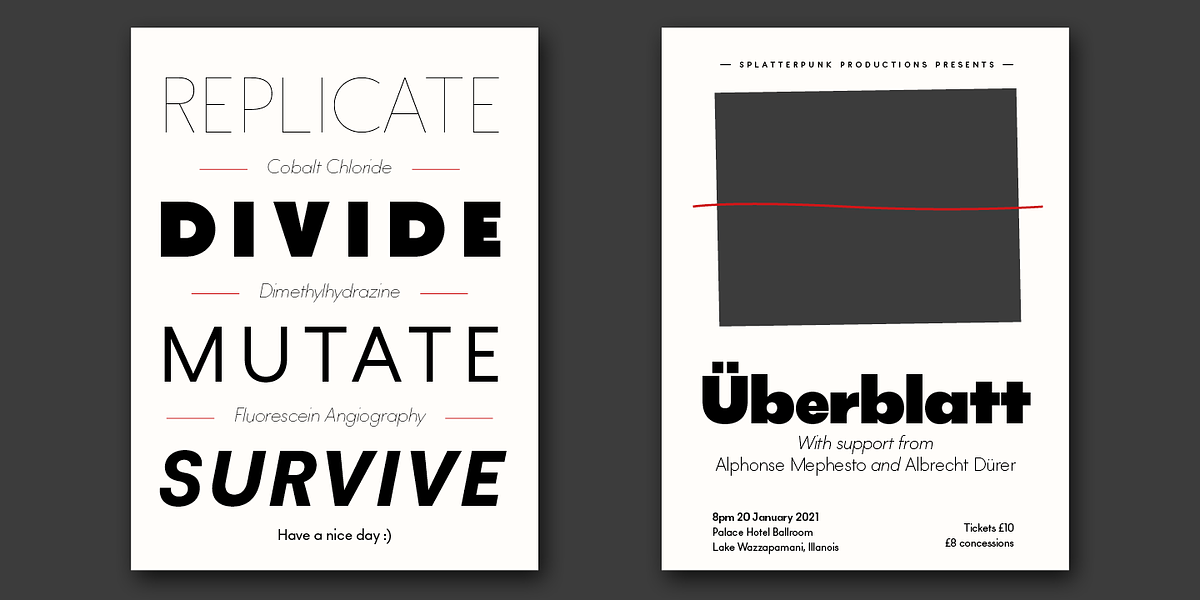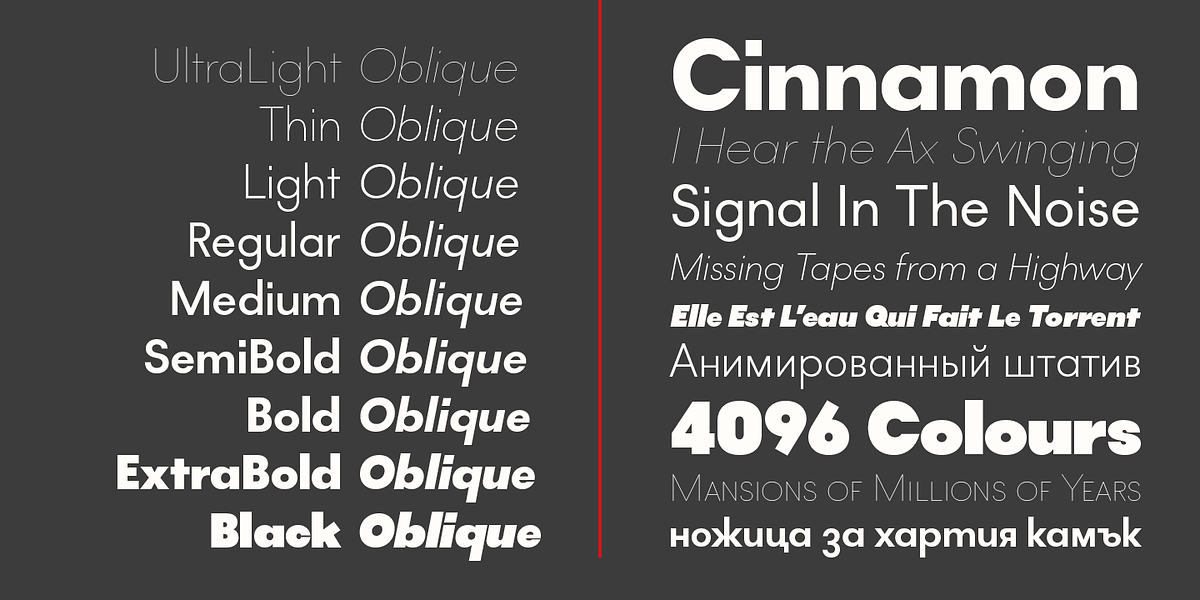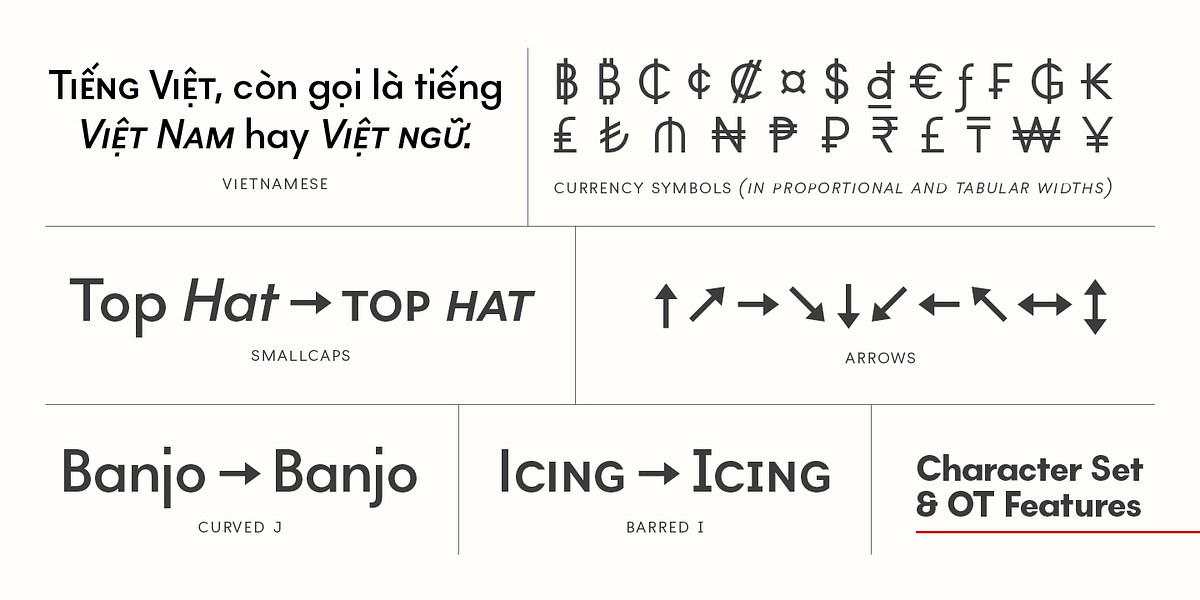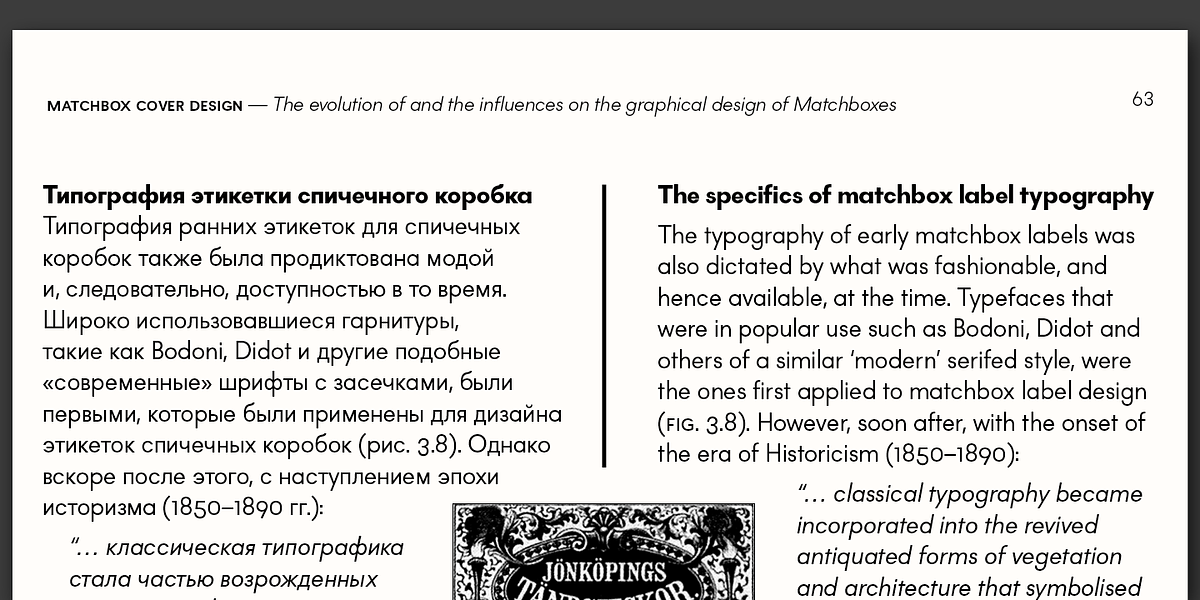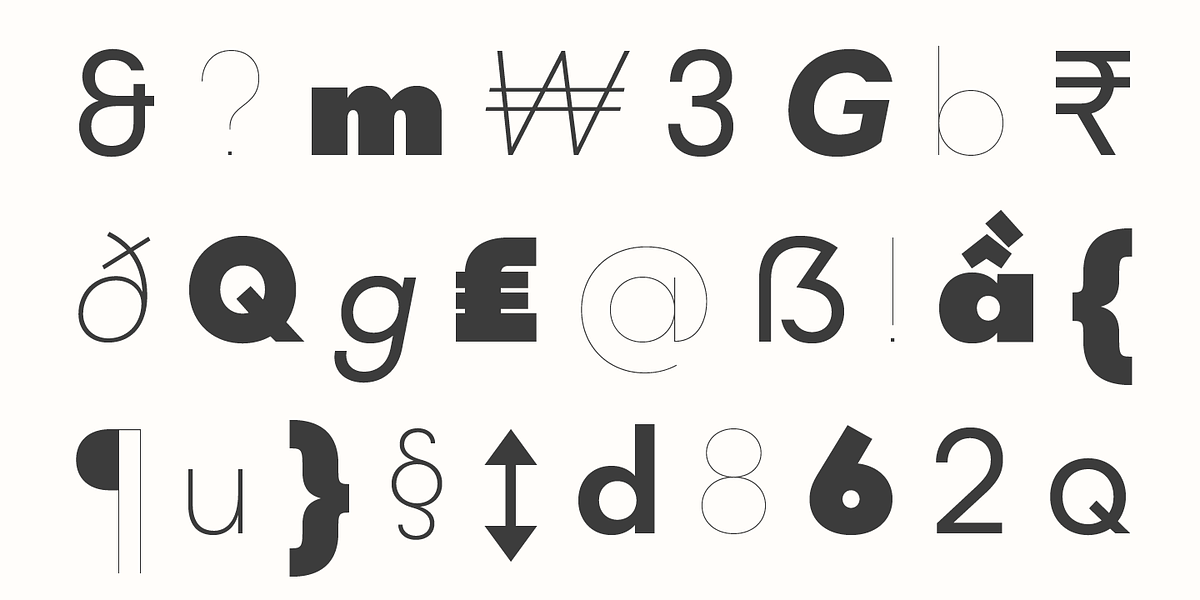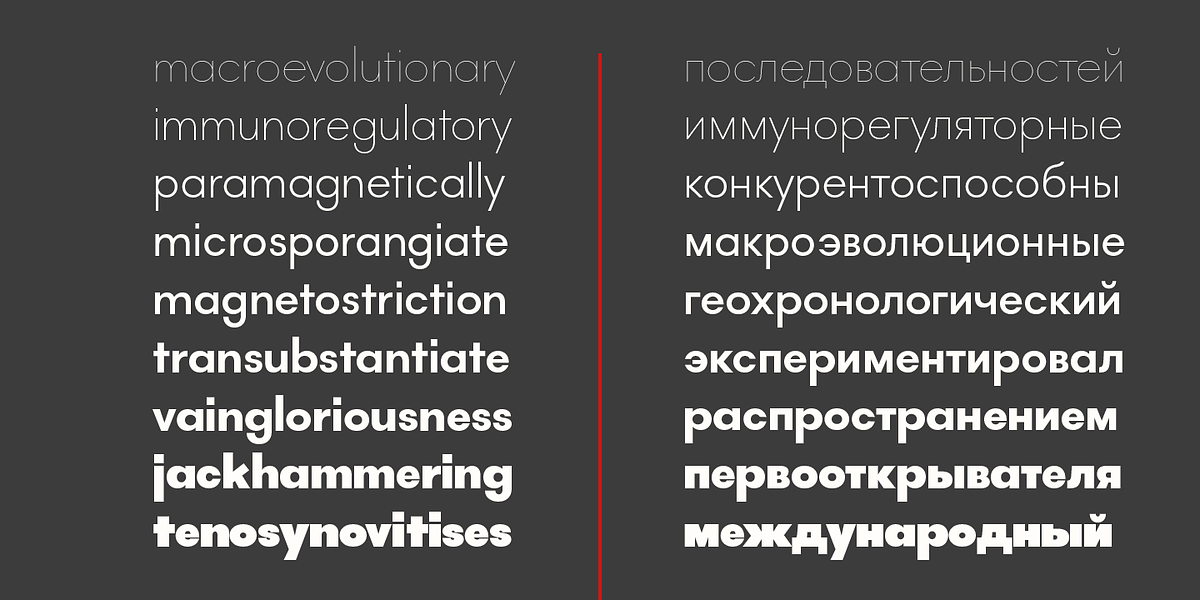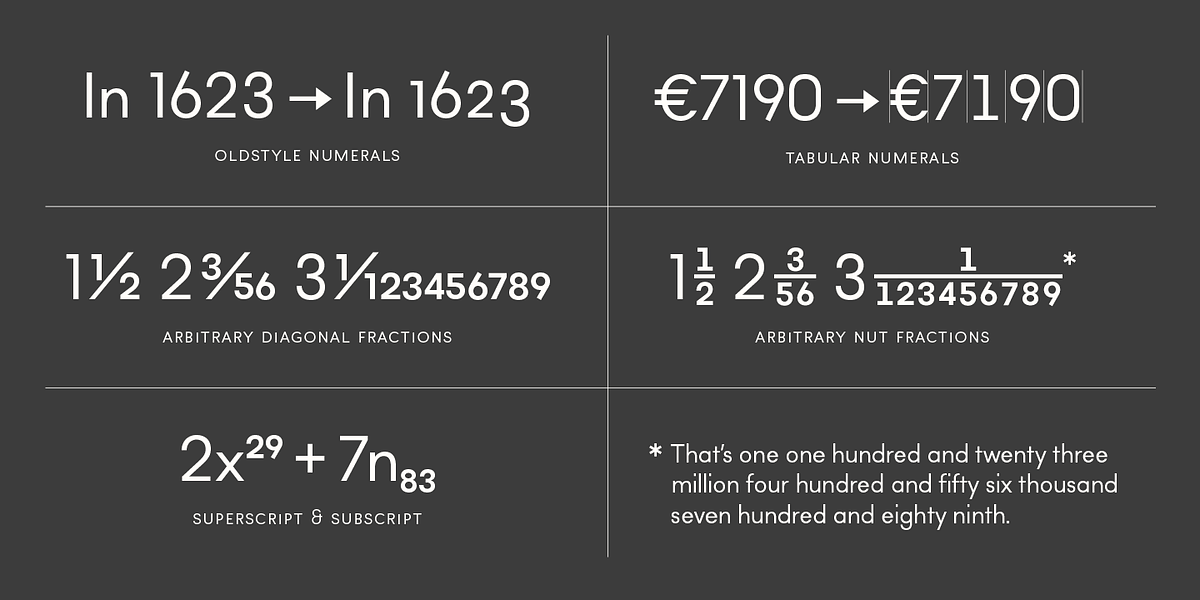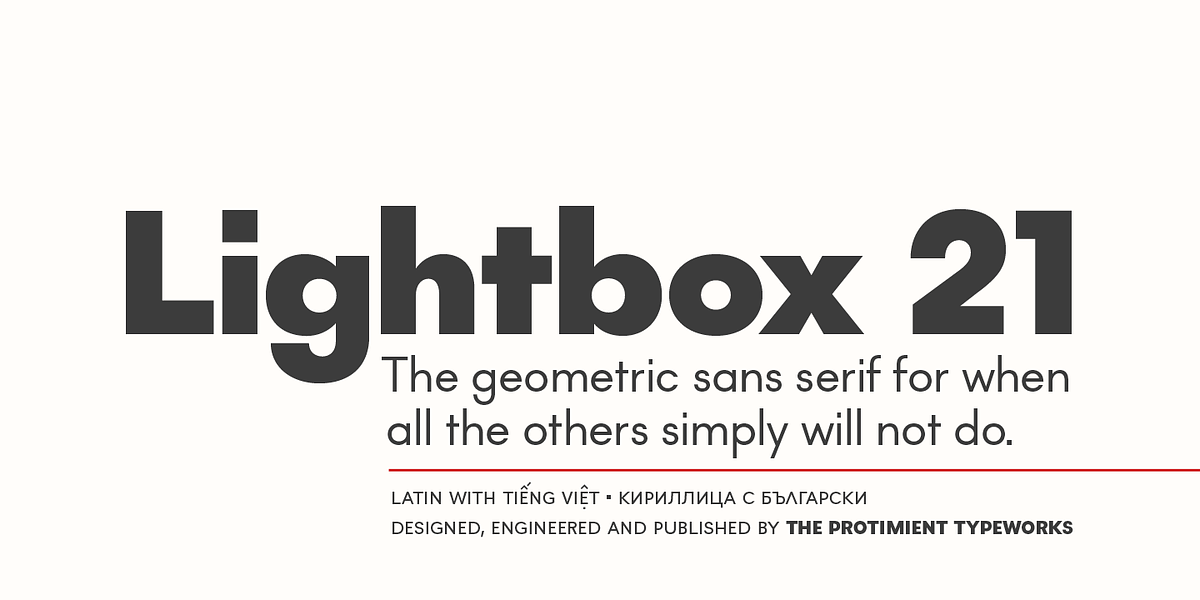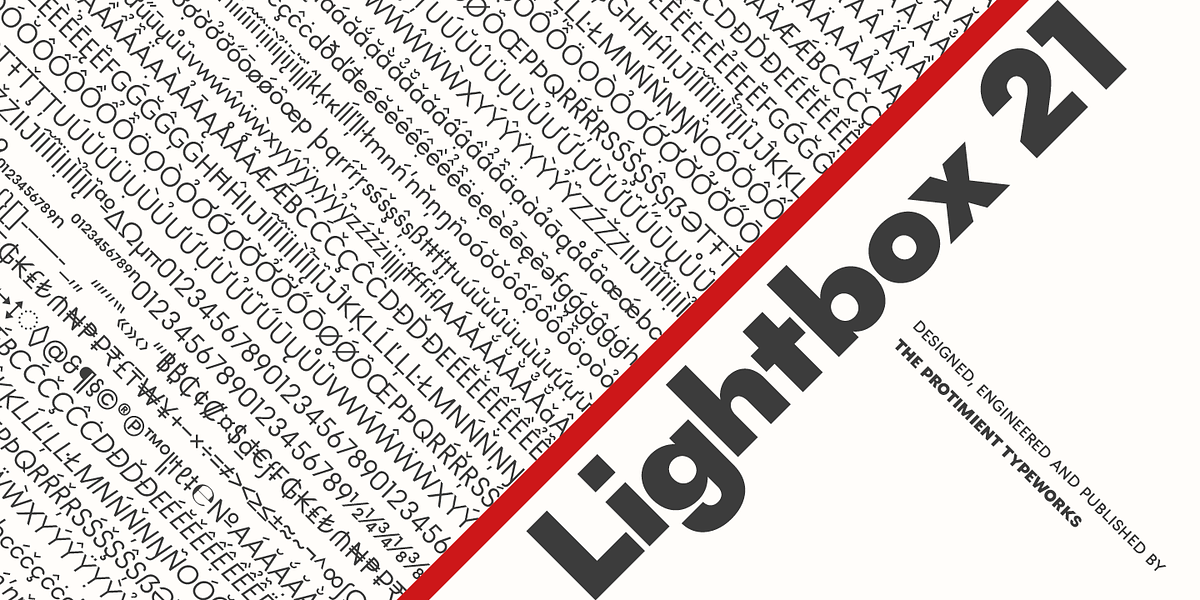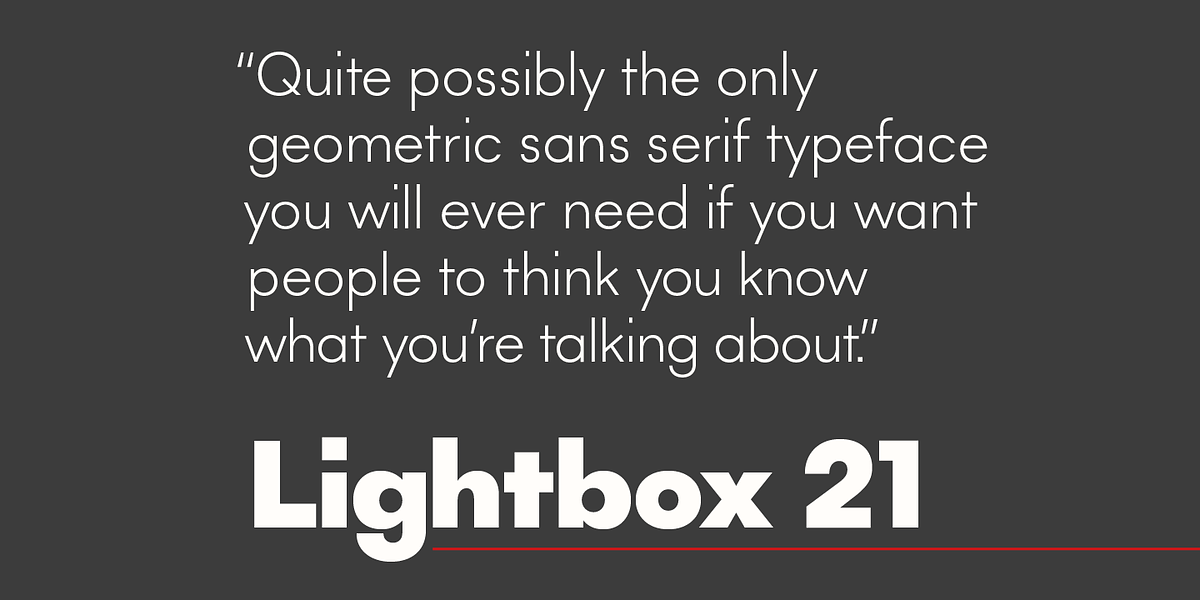
Lightbox 21
Lightbox 21 is a redesigned geometric sans serif font that prioritizes readability and a natural feel. While originally based on the Golden Ratio, Lightbox 21 abandons this concept for a more versatile and classic design. It's well-suited for both editorial work (short to medium texts) and display settings. The font includes a wide character set with support for Vietnamese, currency symbols, arrows, and small caps. OpenType features offer nut fractions and alternate glyphs for uppercase i and lowercase j.